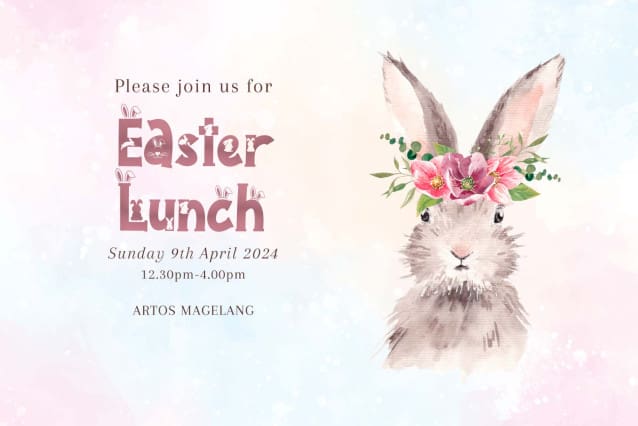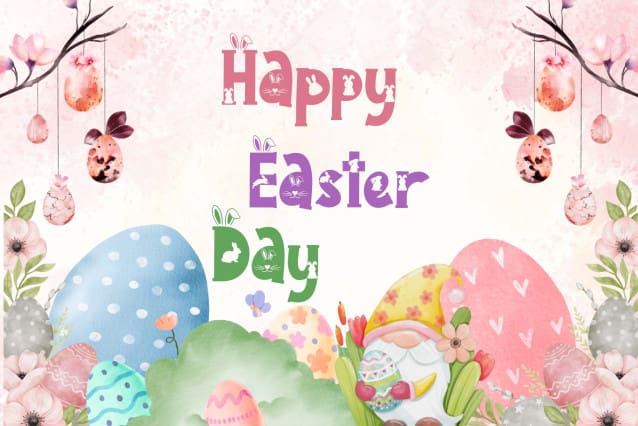
Rabeeto Easter Font
Rabeeto Easter Font is a charming decorative font that brings whimsy and joy to any design. With playful letterforms adorned with Easter-themed elements like bunnies and bunny ears, it captures the spirit of the holiday. Perfect for creating eye-catching titles, greeting cards, and Easter-themed designs that radiate warmth and cheer.